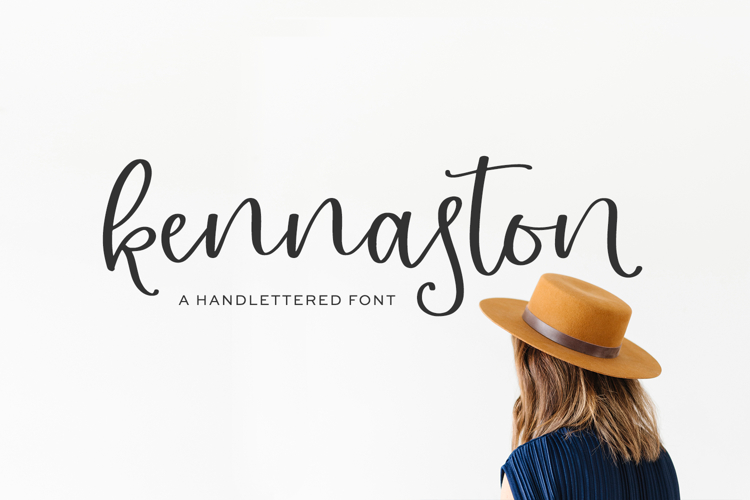
Introducing Kennaston Script, a bounce calligraphy font. Kennaston Script is sweet, feminine, and includes alternate lowercase characters, some with a little extra flourish.
Kennaston Script is best for:
- feminine logos + branding
- website design + website accents - think travel blogs, fashion blogs, & more
Kennaston includes:
- 26 alternate lowercase characters